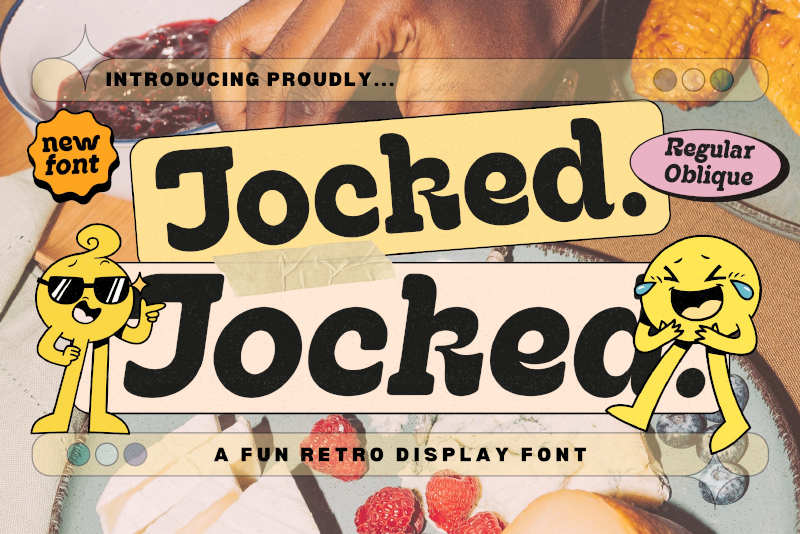
Jocked
Glyphminds Studios · Regular, Oblique · Jocked
https://graphicted.com/product/jocked-font/ Introducing Jocked – A Fun Retro Display Font! Step into a world of nostalgic charm and vibrant energy with Jocked, the ultimate fun retro display font. Designed to bring a playful yet stylish flair to your projects, Jocked combines the bold, dynamic aesthetics of retro typography with a modern twist. NOTE: This demo font is for PERSONAL USE ONLY! Be very careful and take the time to read any and all documentation before deciding to use a font commercially. Ignorance is not an excuse for breaking the law. By installing or using this font, you are hereby agree to this Product Usage Agreement: